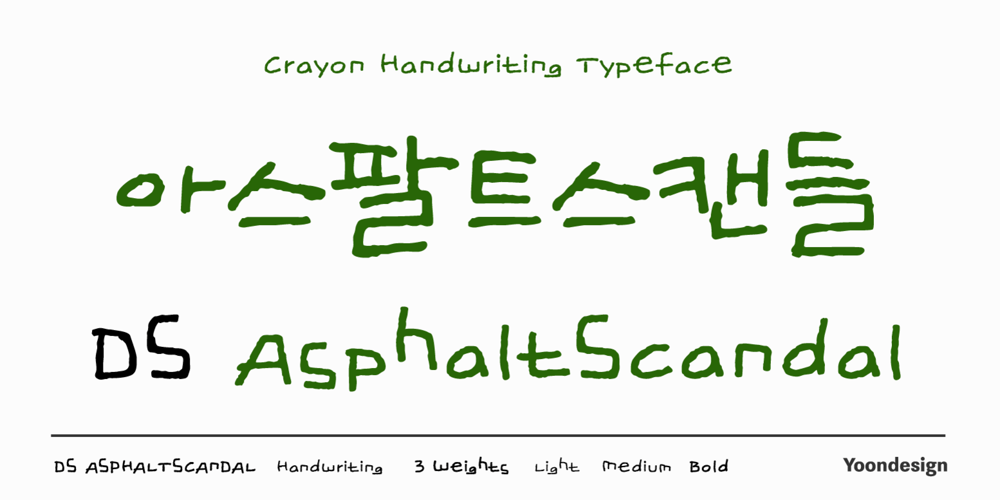
DS AsphaltScandal
DS AsphaltScandal font
DS AsphaltScandal Font Family was designed by Yoon Design Team and published by Yoon Design. DS AsphaltScandal contains 3 styles and family package options. DS AsphaltScandal Family is handwriting font done in crayon. This font was inspired by sinuous texture of Asphalt to give a roughness. For use in larger sizes, the DS AsphaltScandal Family show a lot more detail. This makes sure the letters continue to look rough and interesting, rather than turn into sharp straight lines. This font family has 3 styles and can use these fonts to create posters, greeting cards, scrapbooks, CD labels, T-shirts, coffee mugs, digital videos websites and banners.